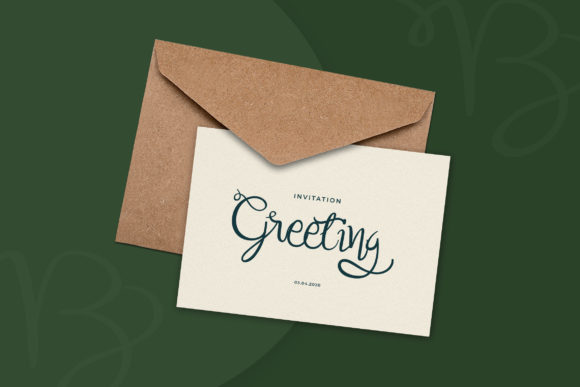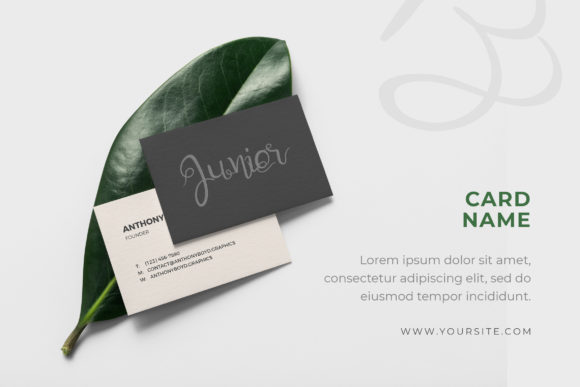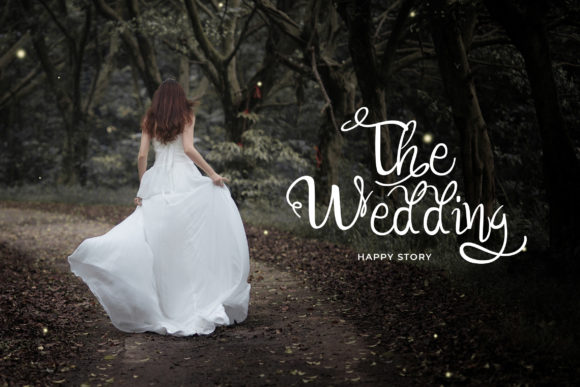
Introduction to Quick Junior Font
Quick Junior is a magical script font carefully created with a touch of elegance.
Whether you’re looking for fonts for Instagram or calligraphy scripts for DIY projects, this font will turn any creative idea into a true piece of art .
Key Features of Quick Junior Font
Why Choose Quick Junior Font?
Quick Junior Font offers exceptional quality and versatility, making it a valuable addition to your design toolkit. Whether you’re creating for personal projects or commercial use, Quick Junior Font delivers professional results.